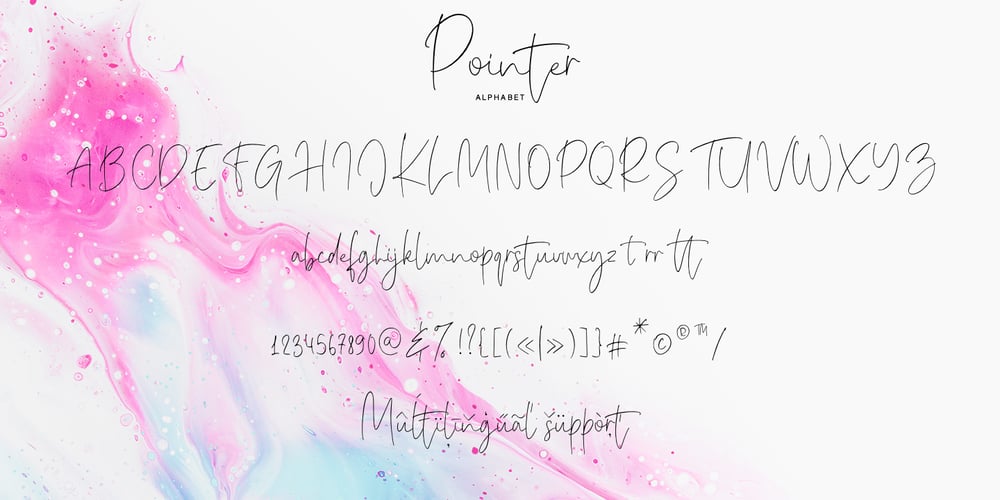
Pointer
Pointer font
Pointer Font Family was designed by Pavel Larin and published by Larin Type Co. Pointer contains 1 styles and family package options. Pointer – a handwritten script font. This fonts are ideal for branding and will decorate any of your projects. You can also use it to create a logo or use for small businesses, t-shirts, book covers, stationery, marketing, blogs, magazines, and more.